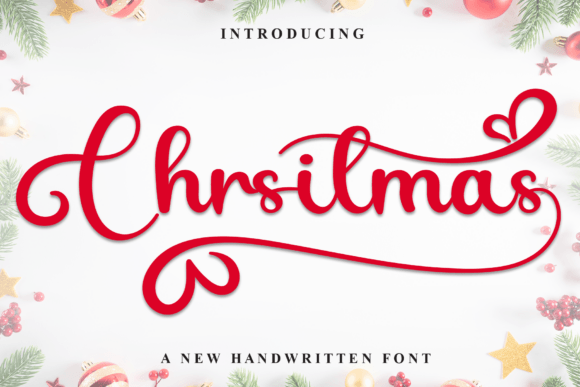
The Magic of Christmas Font: Bringing Joy to Your Designs
As a designer, there’s nothing quite like the thrill of crafting a special message that brings a smile to someone’s face. Whether it’s a wedding invitation, a birthday card, or a holiday greeting, the right font can make all the difference. For me, that perfect font is often the Christmas Font – a charming, handwritten display font that’s as sweet as it is stylish.
This delightful font is more than just a pretty face; it’s a valuable tool in any designer’s toolkit. With its playful, friendly demeanor, it’s the perfect choice for infusing a little extra joy and personality into your designs. And let’s be honest – who doesn’t love a good Christmas font during the holiday season?
Key Features of Christmas Font
- Font Family: A festive, hand-drawn font designed to evoke the spirit of Christmas.
- Unique Characteristics: Features intricate, hand-drawn details and ornaments, adding a touch of whimsy and festivity to any design project.
Designer Review: Christmas Font
Overall, I think the Christmas Font has some great qualities that make it a nice addition to any holiday design project. ✨ The font’s festive feel is sure to put users in the holiday spirit, and the bold lines and ornaments add a fun and playful touch. ✨ The font’s versatility also makes it suitable for a variety of design applications, from greeting cards to social media posts.
However, there are some limitations that prevent it from being a top-notch font. ⚠️ One major issue is the lack of cohesion between the different ornaments and characters. While each element is well-designed, they don’t quite mesh together seamlessly, which can make for some awkward-looking combinations. ⚠️ Additionally, the font’s bold lines and ornaments can sometimes make it difficult to read, particularly in smaller font sizes.
Here are some specific things that I liked and disliked about the font:
- ✨ Fun and festive feel
- ✨ Versatile design applications
- ⚠️ Lack of cohesion between ornaments and characters
- ⚠️ Difficulty reading in smaller font sizes
Overall, I think the Christmas Font is a decent choice for holiday design projects, but it’s not without its limitations. With a bit of tweaking and refinement, it could be a truly standout font.
The Christmas font is commonly used for:
- Christmas card designs
- Holiday party invitations
- Gift tags and labels
- Seasonal social media graphics